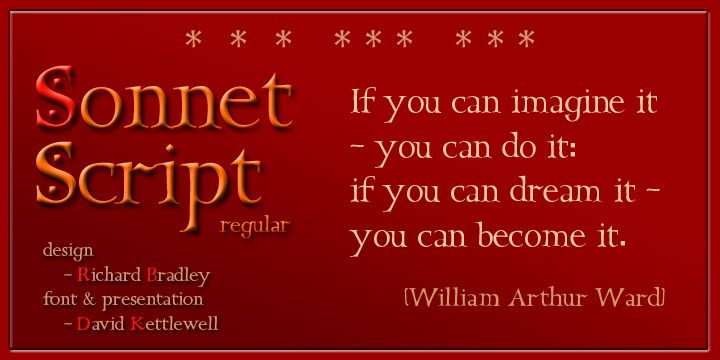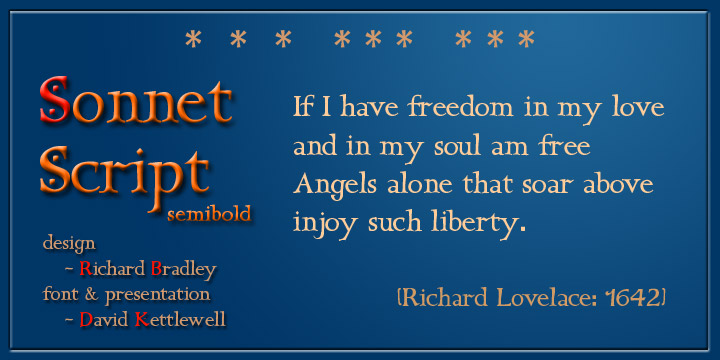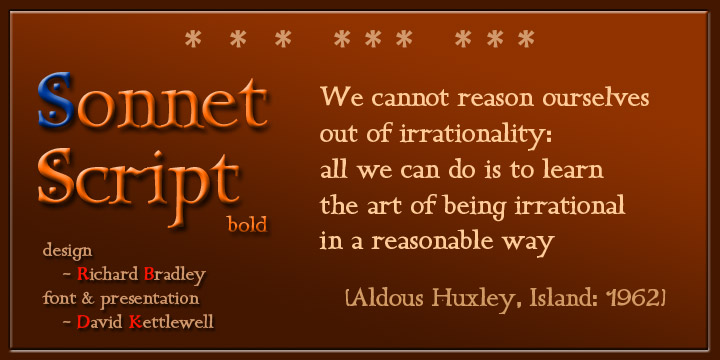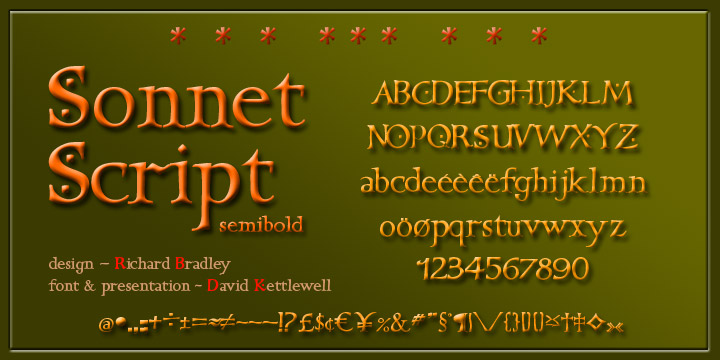
Sonnet Script
Richard J. Bradley - known for his Fine Hand, Bible Script, Bradley Hand and Calligraphic Ornaments - drew this font inspired by the calligraphy of the Welsh artist and poet David Jones (1895-1974), who moved in the same circles as Eric GIll (Gill Sans font) and indeed was engaged to Gill's daughter Petra. Font and 'posters' by David.
Here are examples of all three weights - regular, semi-bold and bold - and of varying degrees of embossing, colouring of capitals etc.